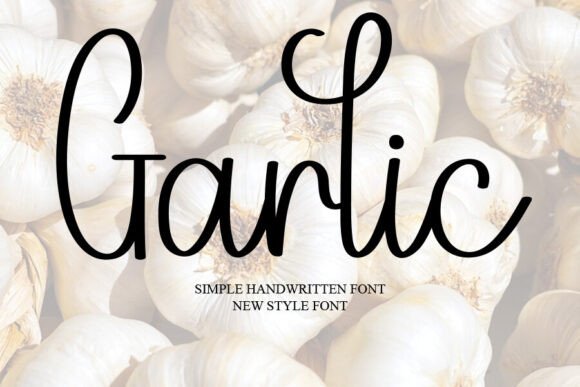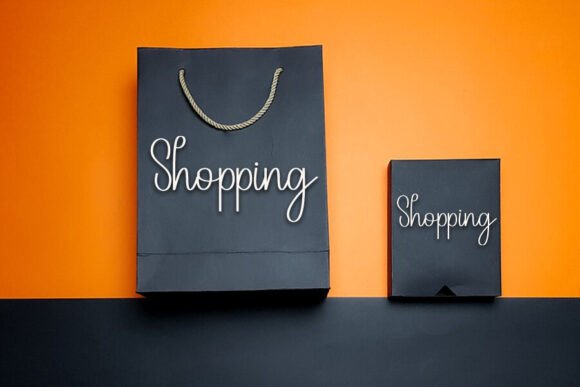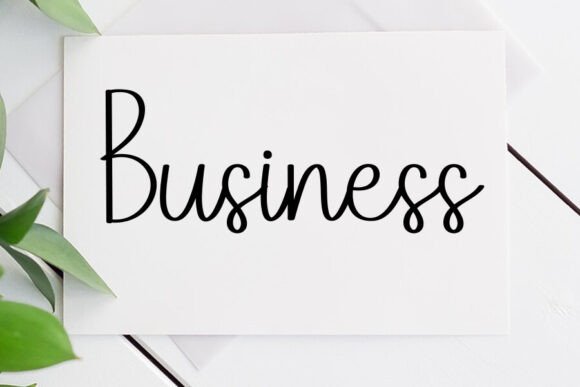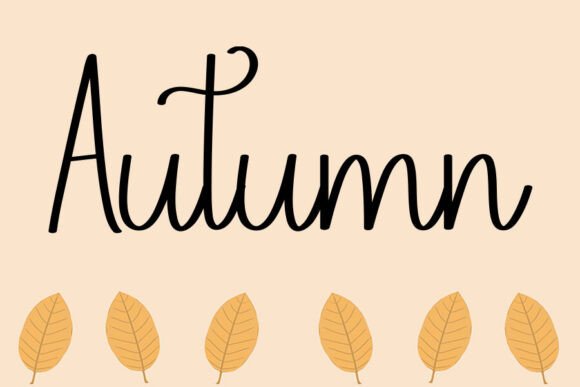
Garlic Font: Elegant Handwritten Script for Wedding & Logo Design
About the Garlic Font
Introducing the Garlic Font, a beautifully crafted typeface designed to elevate your creative projects. Garlic is a sweet and cursive handwritten font. This gentle font will look gorgeous on a variety of design ideas. It will add a joyful and romantic touch to each of your projects! Perfectly fit for branding, logo, wedding things, greeting cards, fashion, lookbook, marketing promotion, and any time you want your design to look fancy and elegant but still casual.
Garlic’s playful, yet elegant, nature makes it ideal for branding projects requiring a touch of whimsy, particularly logos, short headlines, and invitations. It excels in applications like wedding stationery, social media graphics, and packaging for products targeting a feminine or romantic demographic. However, its cursive style and varying stroke weights make it less suitable for body text or UI elements where legibility is paramount. Avoid using it for large blocks of text or situations needing high readability at smaller sizes.
Pairing Garlic with a clean sans-serif like Lato or Open Sans provides a strong contrast, balancing its delicate curves with modern simplicity. For a more sophisticated look, consider pairing it with a classic serif such as Garamond or Didot. These pairings offer visual harmony while maintaining clear hierarchy and readability. The overall effect depends on the selected pairing, ranging from approachable and friendly to upscale and sophisticated.
Garlic’s core personality is best described as charming and approachable, leaning towards elegance without being overly formal. It evokes feelings of warmth and approachability, making it a versatile choice for brands wishing to convey personality and refinement.
Garlic Font Usage Examples
Garlic Font Example